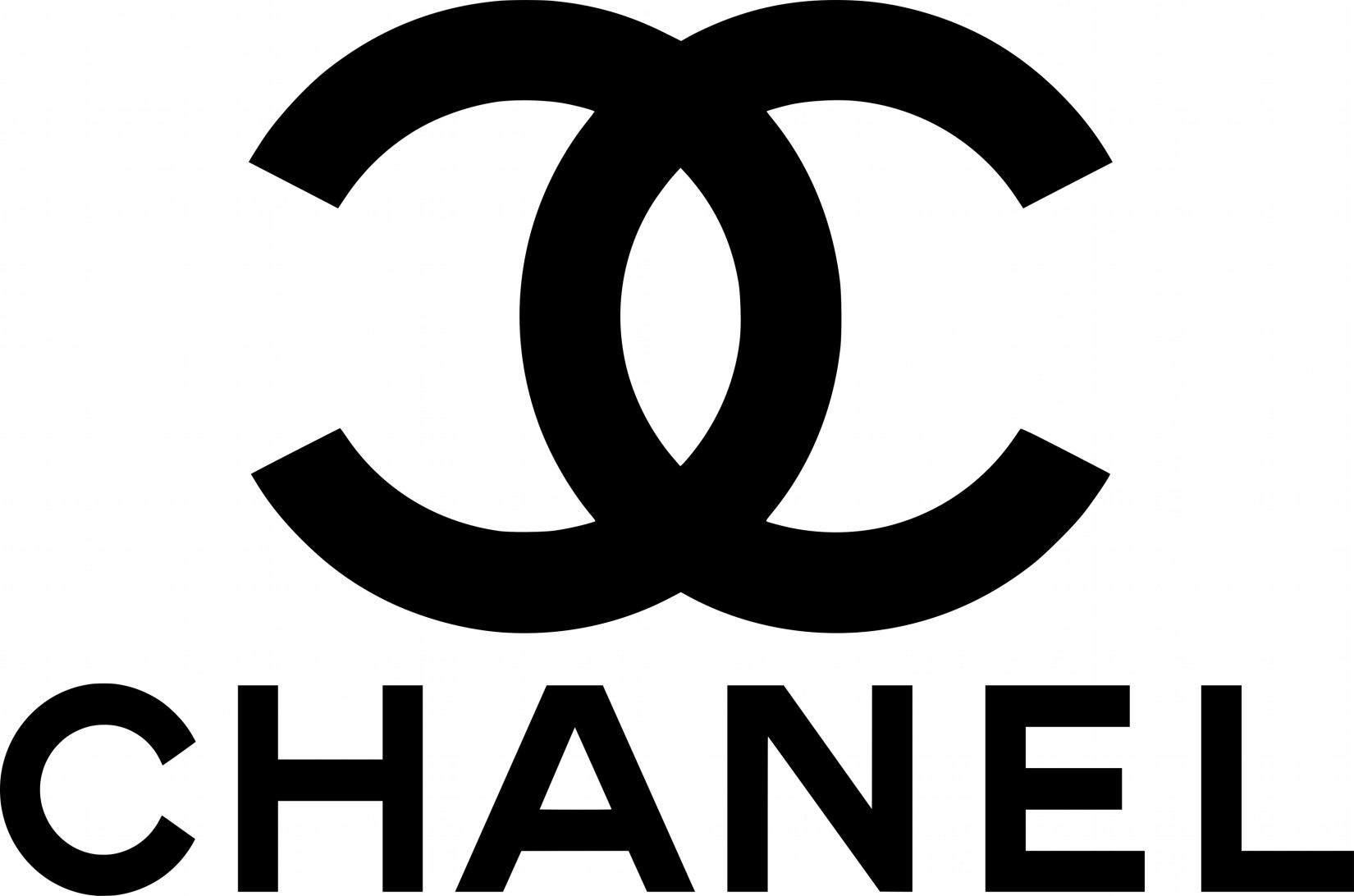
Chanel Font Style
Chanel Font Style - Web dec 26, 2021 at 00:01. The font couture by chase babb is definitely not this font, couture is a reproduction. Web chanel font has another name, couture font, this is a sans serif font with two unique styles, bold italic and bold.